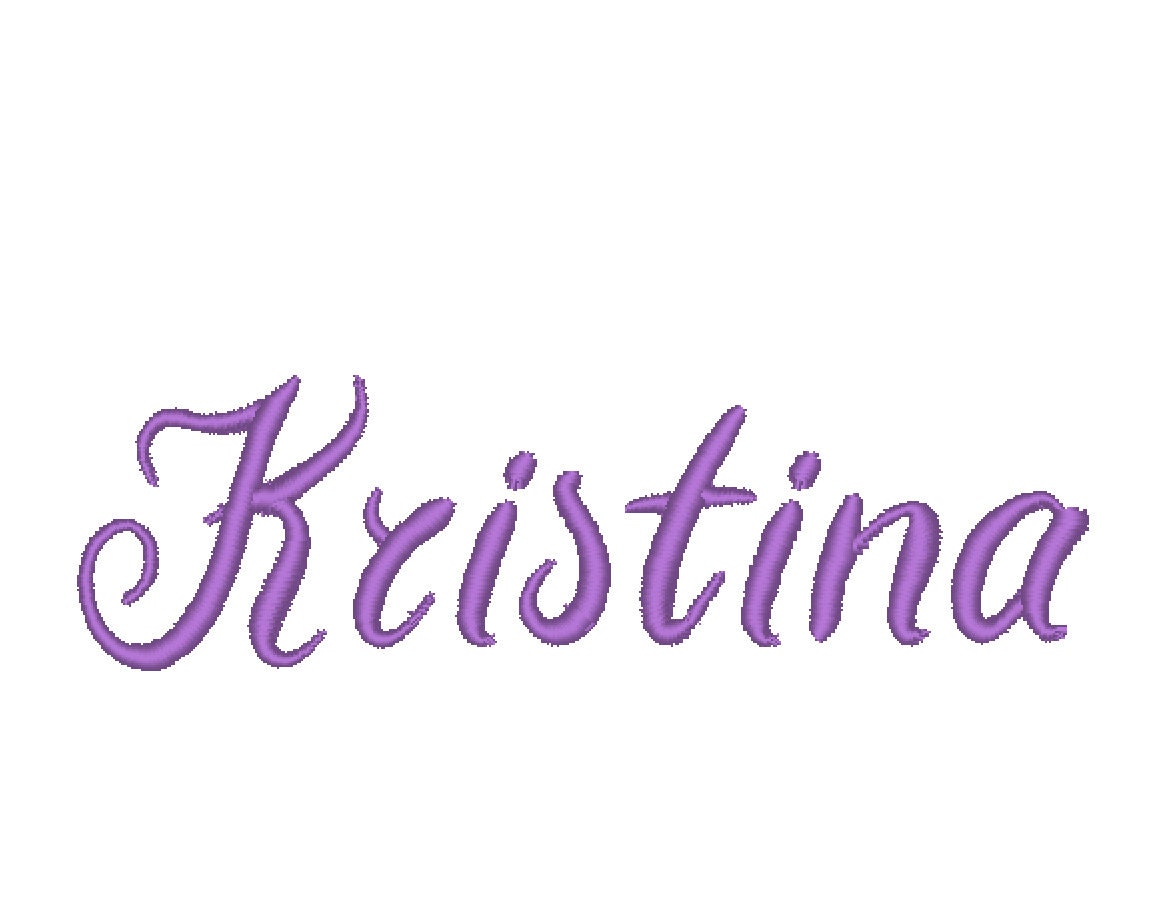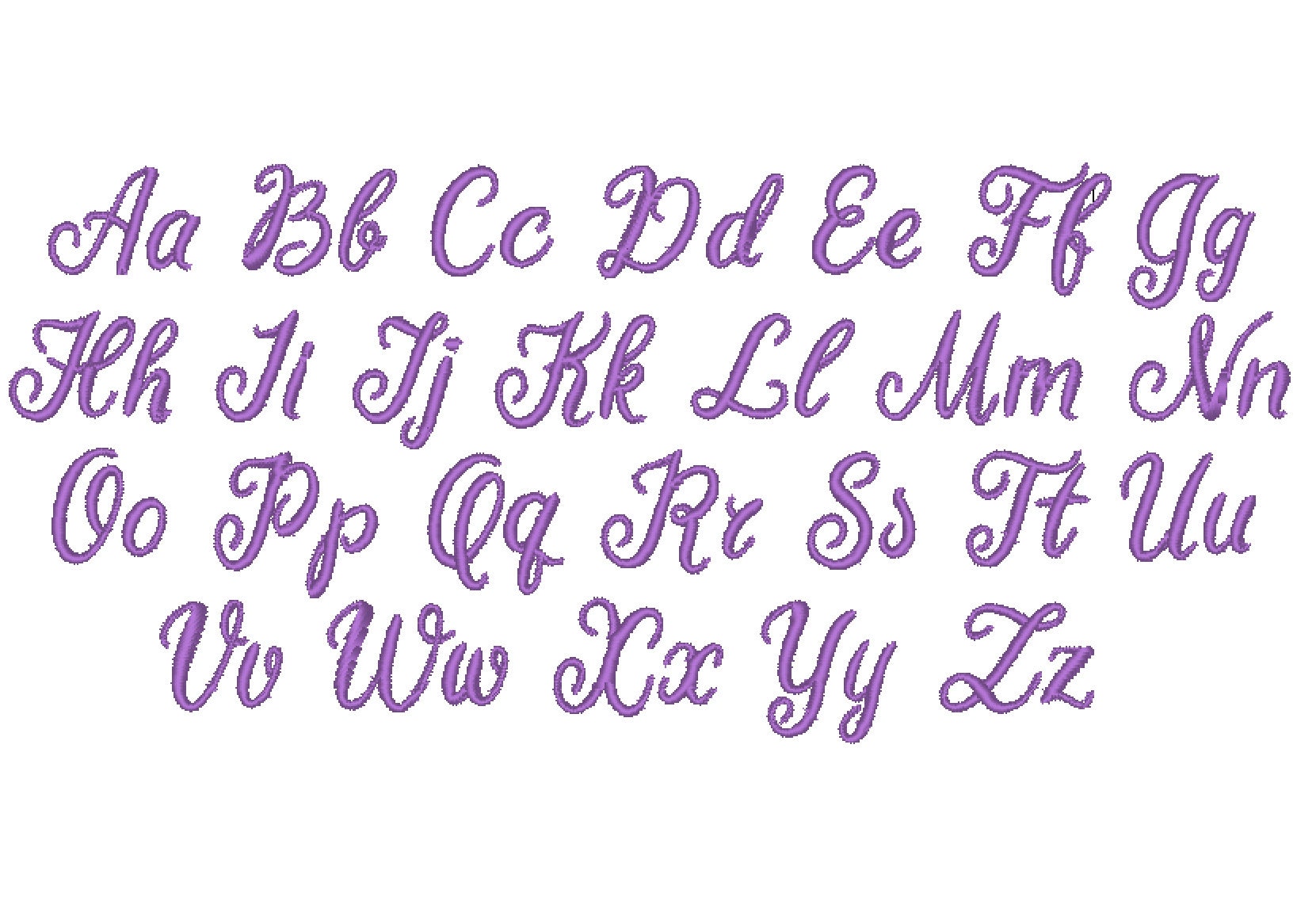
Monogram satin stitch Font Alphabet from A to Z uppercase and lowercase machine embroidery design sizes 0.5, 1, 1.5, 1.7 and 2 inches handwritten cursive letters BX included
Capital letters and lowercase letters